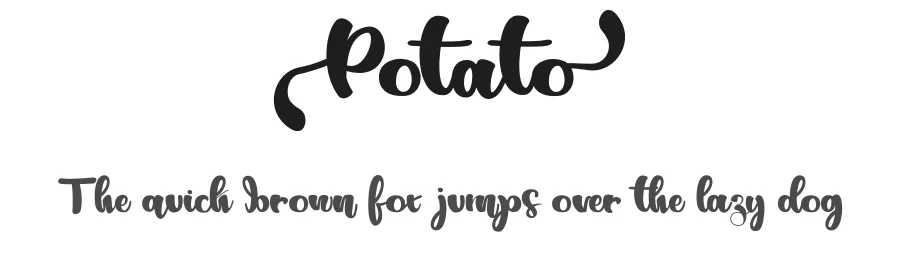
About Honey Shake Font
Honey Shake Specifications
| Font Family | Honey Shake |
| Full Name | Honey Shake |
| Glyph Count | 227 glyphs |
| PostScript Name | HoneyShake |
| Designer | Fatoni Nurman |
Browse all βWhat pairs well with Honey Shake Font?
Honey Shake Font is a script font that shines as a display or heading face. Pair it with a clean sans-serif or serif font for body text β the contrast creates a clear hierarchy while the two styles stay balanced and easy to read.
Honey Shake Font
by ToniStudio